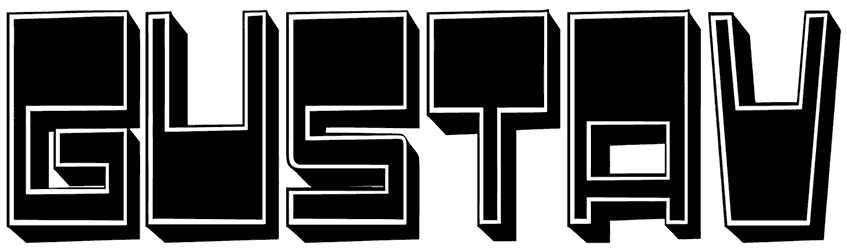
Gustav Font
Creative, innovative, and professional qualities come to mind when you see Gustav. This groovy font retains many of its most interesting and playful features while still looking fresh and stylish.
The happy and exciting atmosphere created by this retro font’s presence compensates well for the lack of small letters. That’s why it’s hard for tasteful designers not to fall in love with such a unique and playful collection for designing computer games or toy packaging.